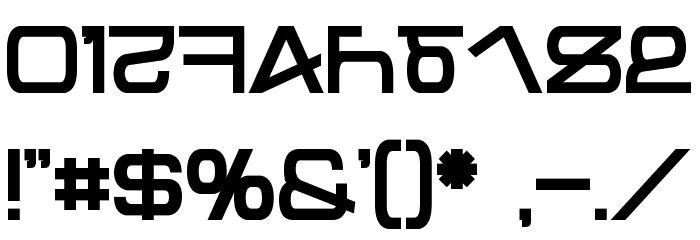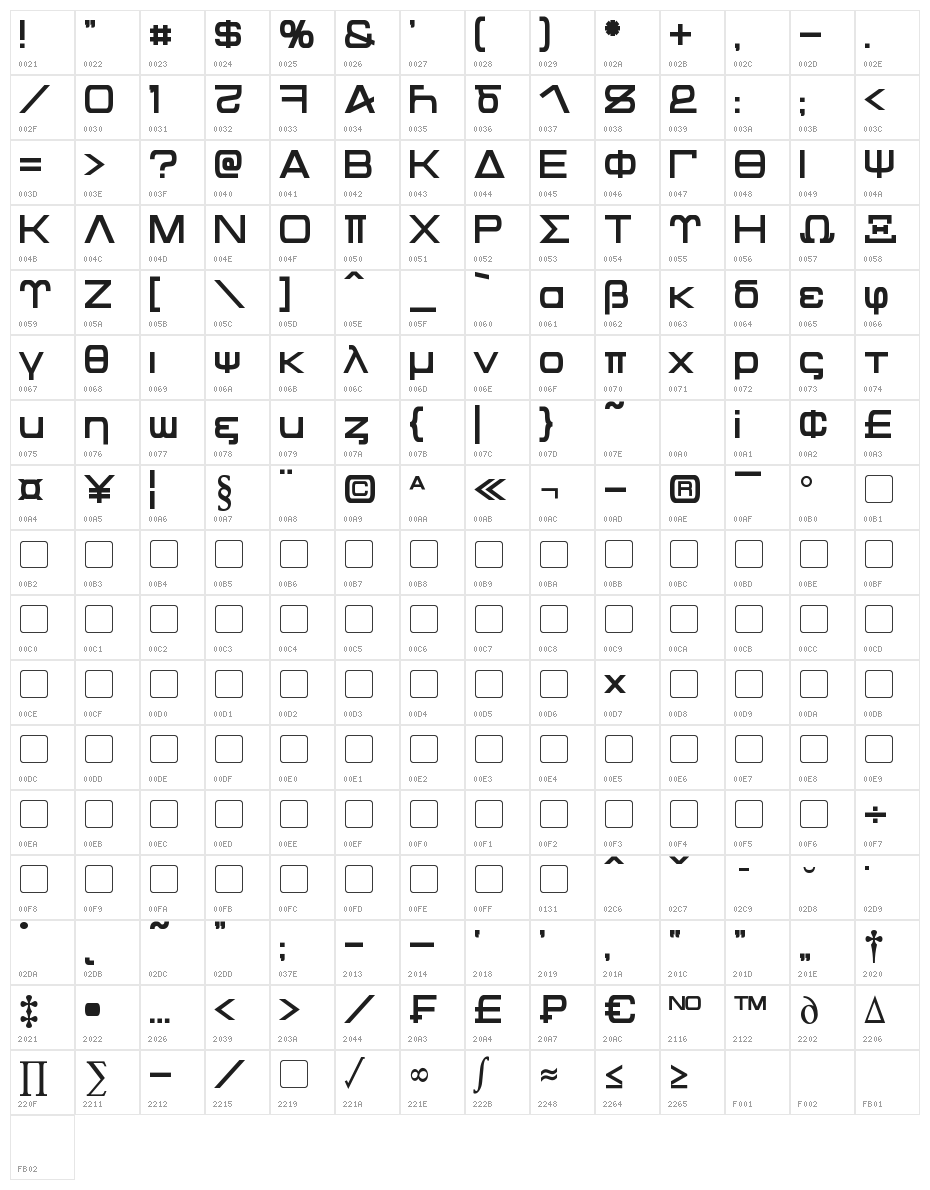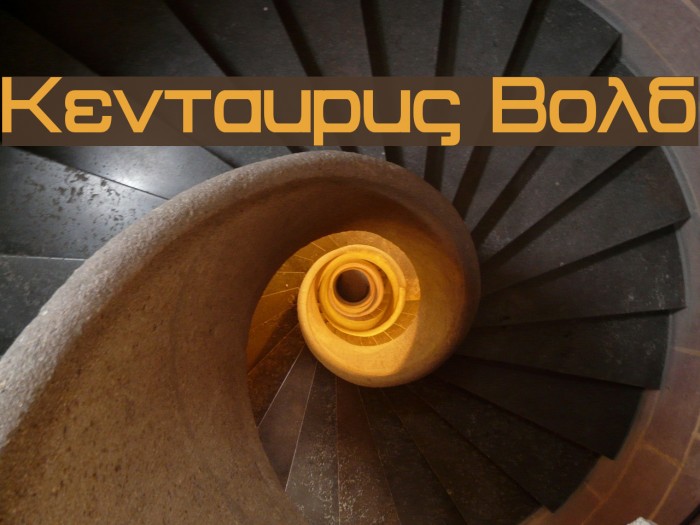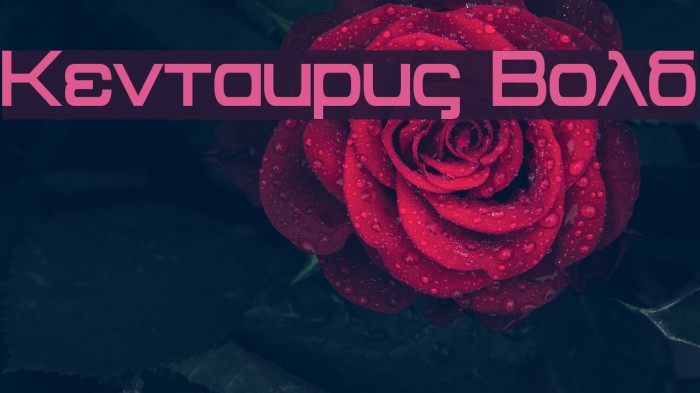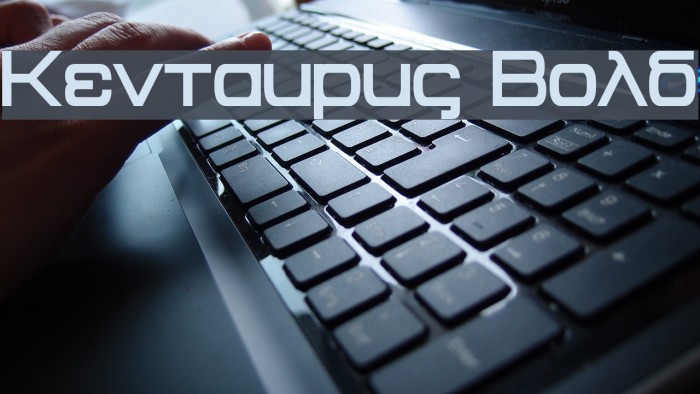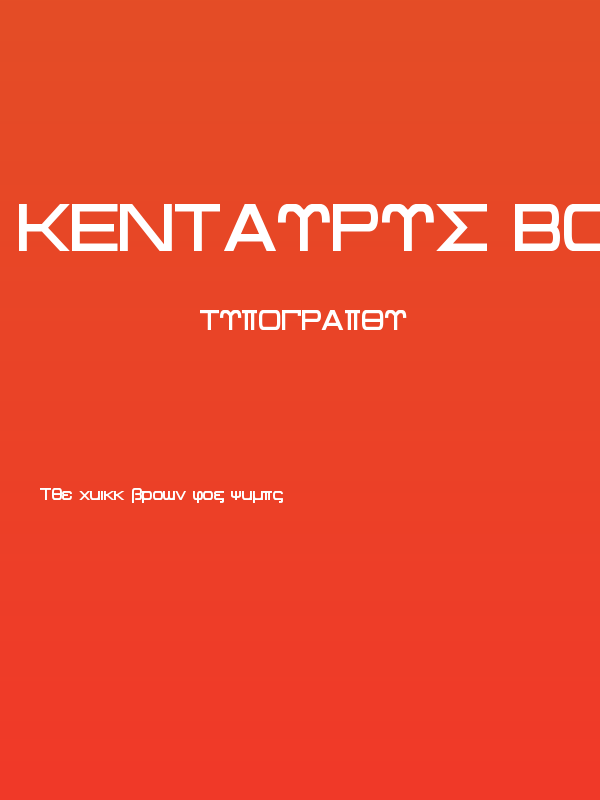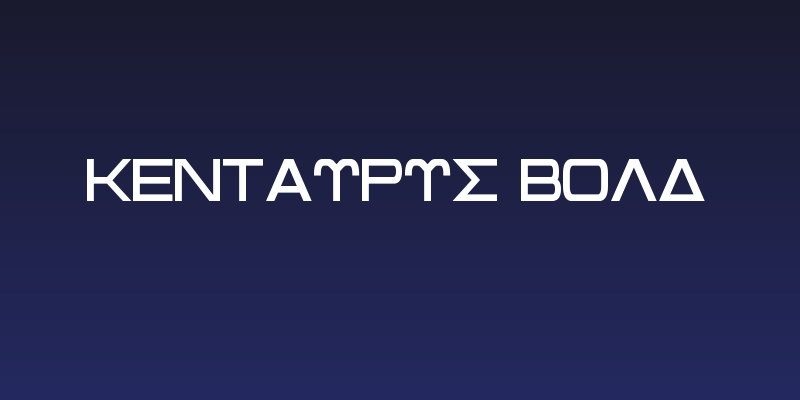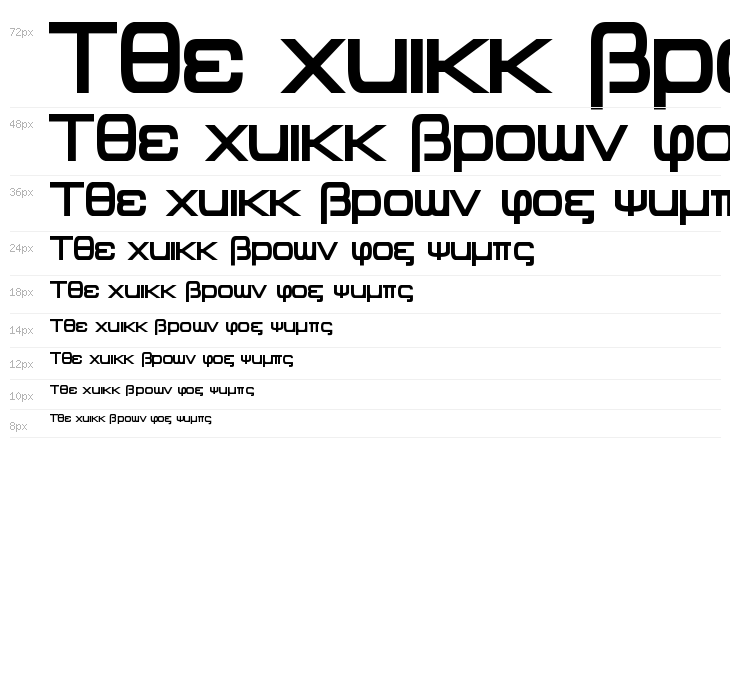
Kentaurus Bold Font
Kentaurus Bold Description
This font features a bold, geometric design with a modern and futuristic aesthetic. The characters are constructed with clean, straight lines and sharp angles, giving it a technical and structured appearance. The uppercase letters have a uniform height and width, while the lowercase letters maintain a consistent style with slightly rounded edges. The numerals and special characters follow the same geometric pattern, ensuring a cohesive look across all elements. This font is highly legible and stands out due to its bold weight and distinctive style.
| Proposed Projects | Ideal for technology branding, sci-fi themed projects, video game interfaces, and modern advertising campaigns. |